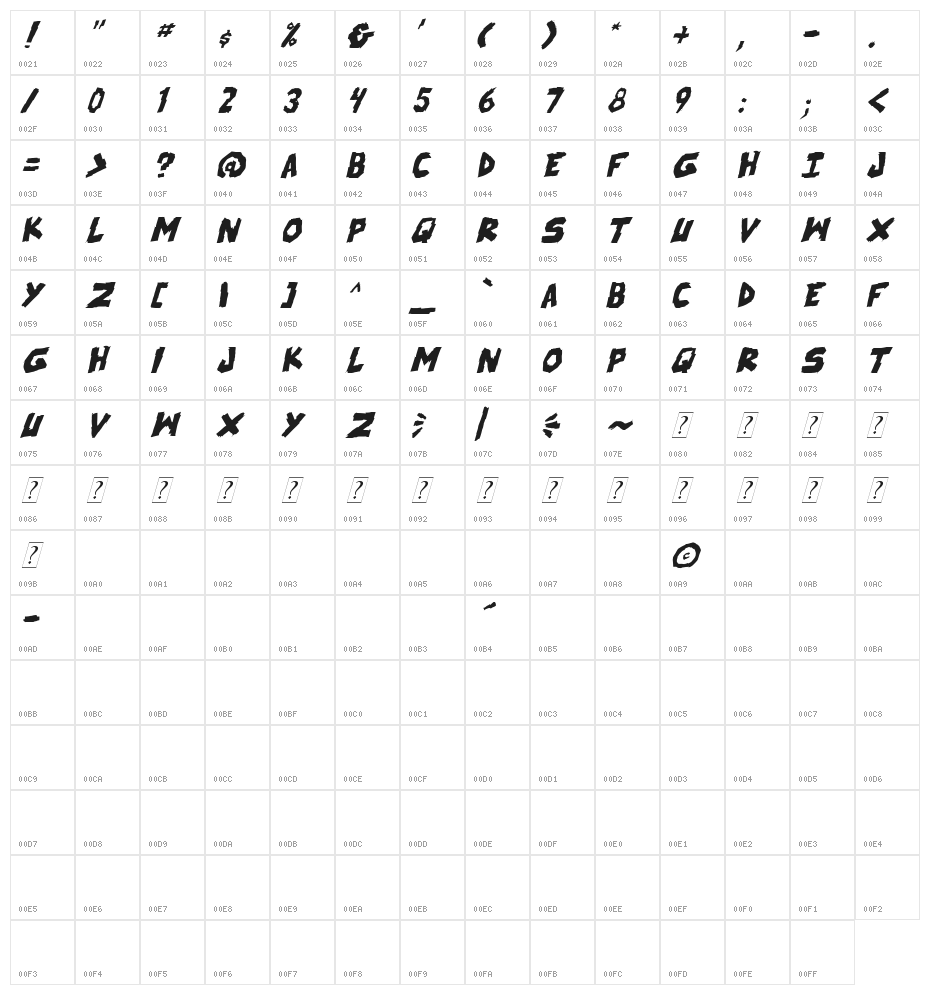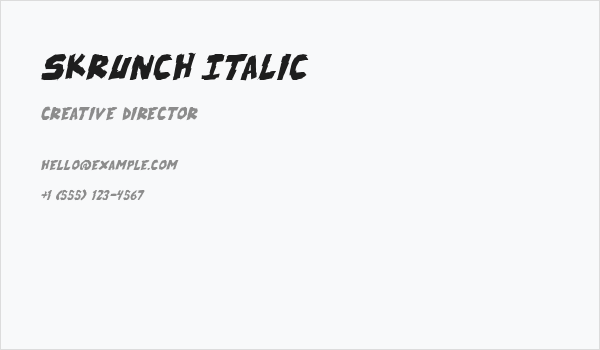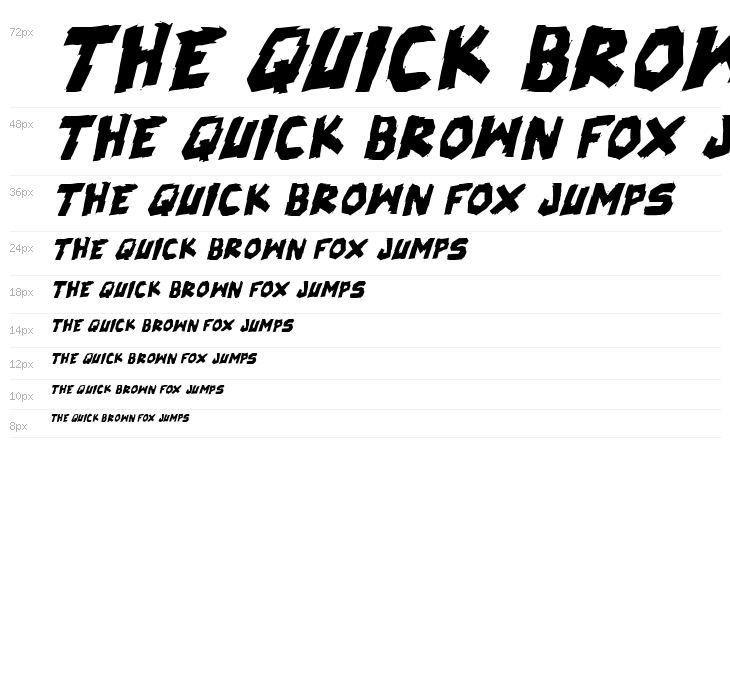
skrunch Italic Font
skrunch Italic Description
This font features a bold and dynamic style with a distinct italic slant, giving it a sense of movement and energy. The characters are sharply angled with irregular edges, creating a rugged and edgy appearance. The uppercase and lowercase letters maintain a consistent style, while the numerals and special characters complement the overall design. The font's unique aesthetic makes it stand out, ideal for projects that require a strong visual impact. Its boldness and irregularity suggest a rebellious or adventurous theme, suitable for creative and unconventional designs.
| Overall Style | Modern, Edgy |
| Proposed Projects | Ideal for posters, album covers, branding for extreme sports, or any project needing a bold, adventurous look. |